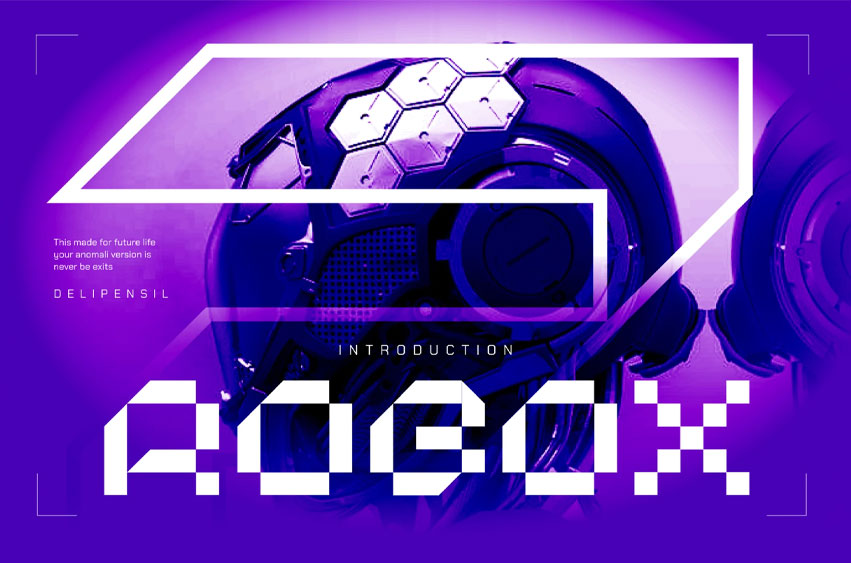
Robox Font
Robox Font Making new style future, for your project, product, headline, symbol, and anything, you can bring your design to another next level.
Every letter has a unique and beautiful touch, which will make your design come alive!
• Robox Font Style
• Robox Outline style
• Robox Kerning Style
• Robox Pixel Style Font